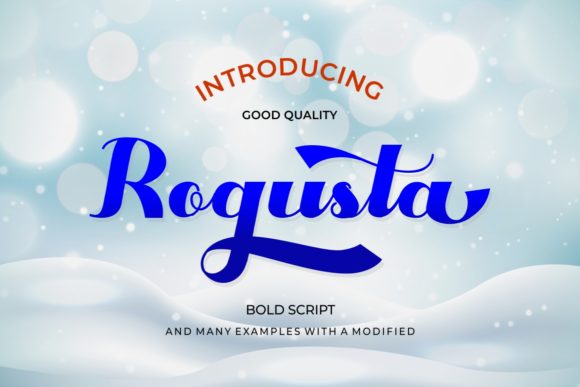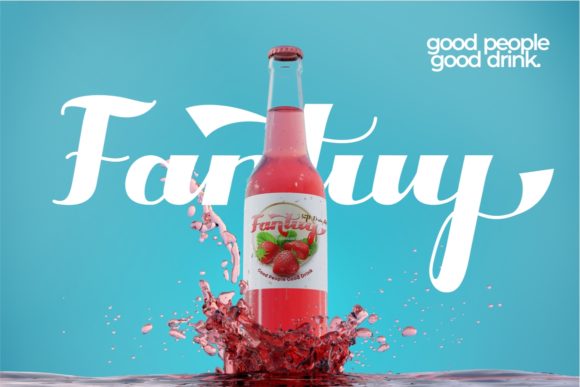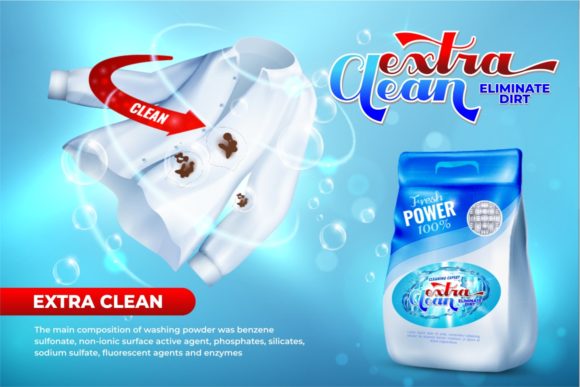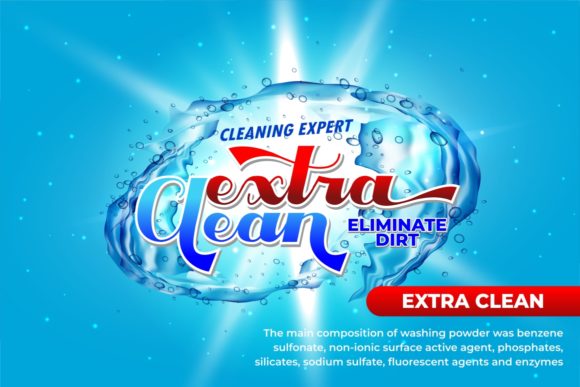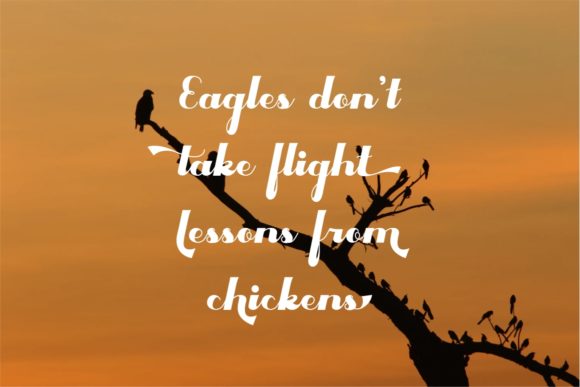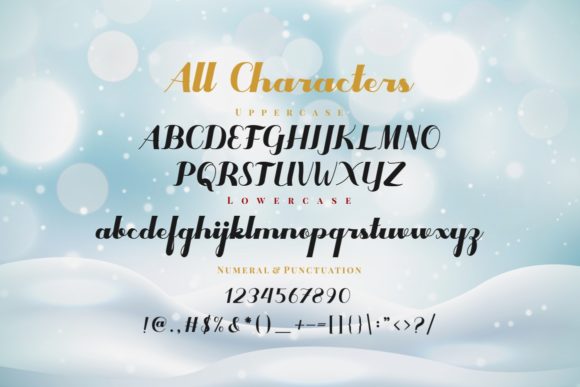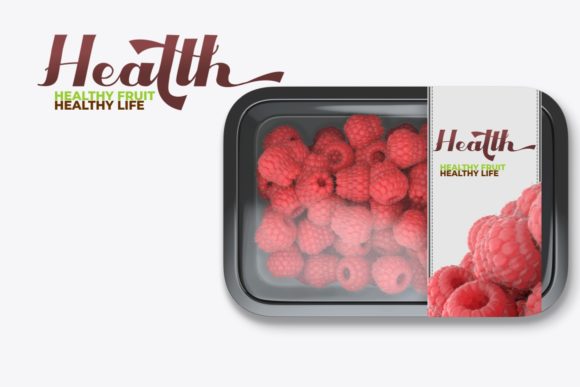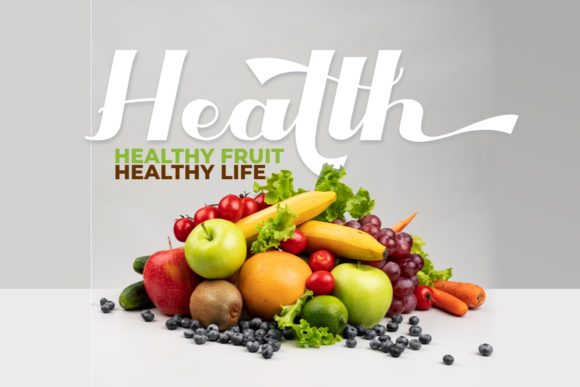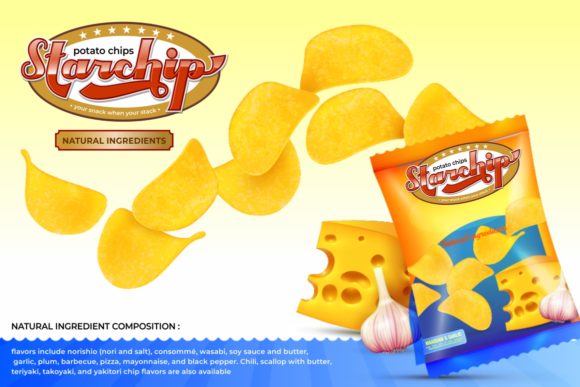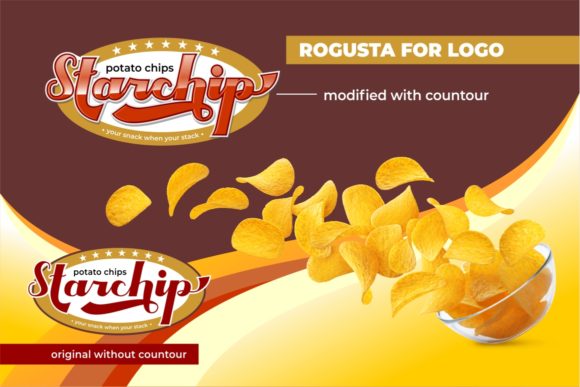
Rogusta Font
About Rogusta Font
Rogusta feels playfully nostalgic and delivers an incredible vintage aesthetic. Use this handwritten font to add that special retro touch to any design idea you can think of!